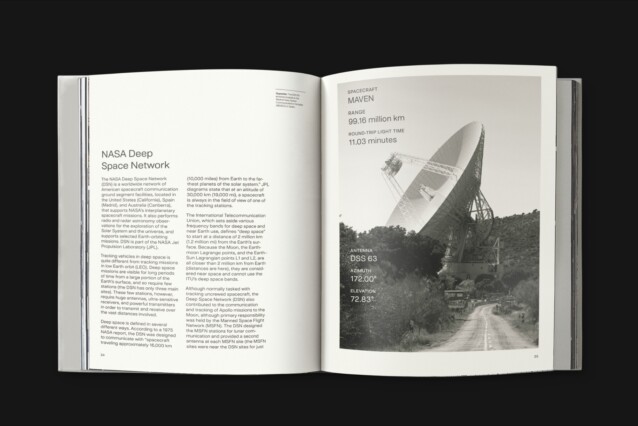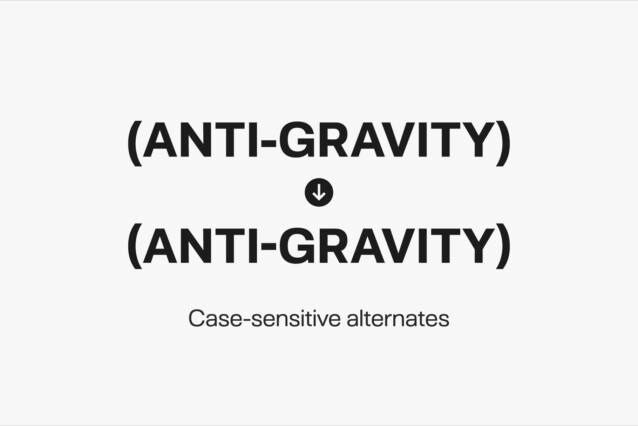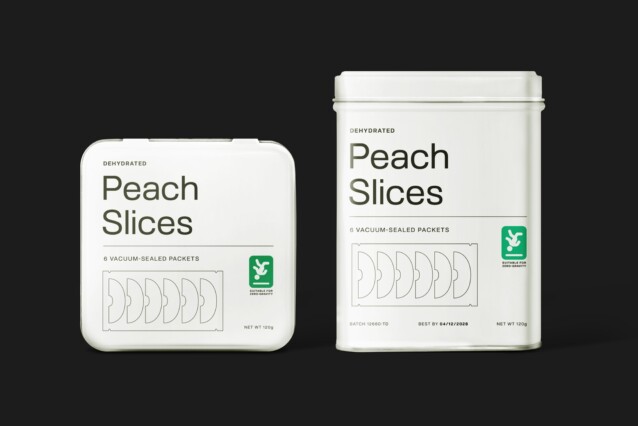
Orbiter Font Family
Orbiter Font is a stunning modern typeface family. It features a slightly squared, grotesque construction. With an ample x-height and chamfered joints, Orbiter holds up when set in small text or large signage. It also boasts over 380 glyphs and support for many Latin-based languages.